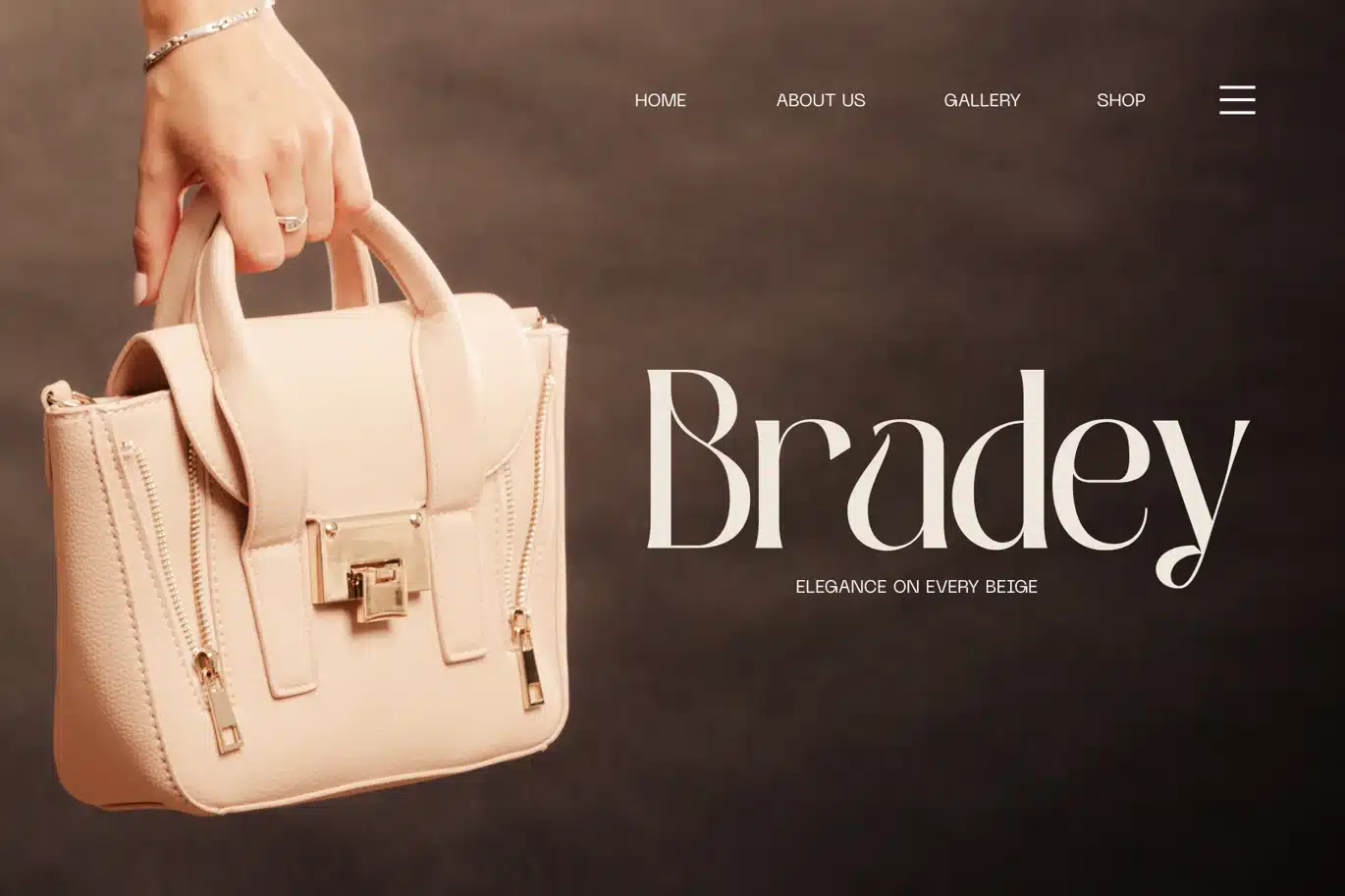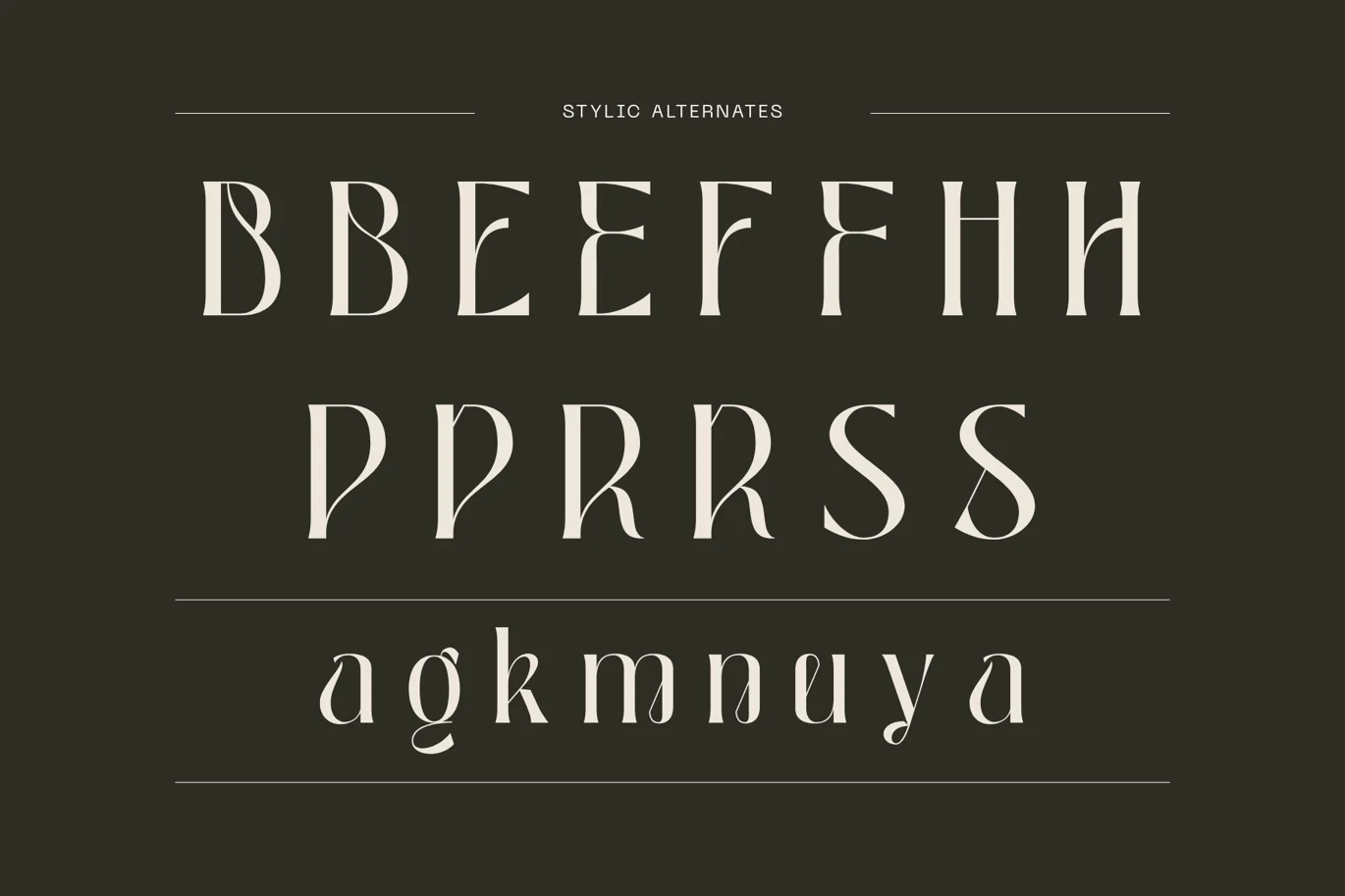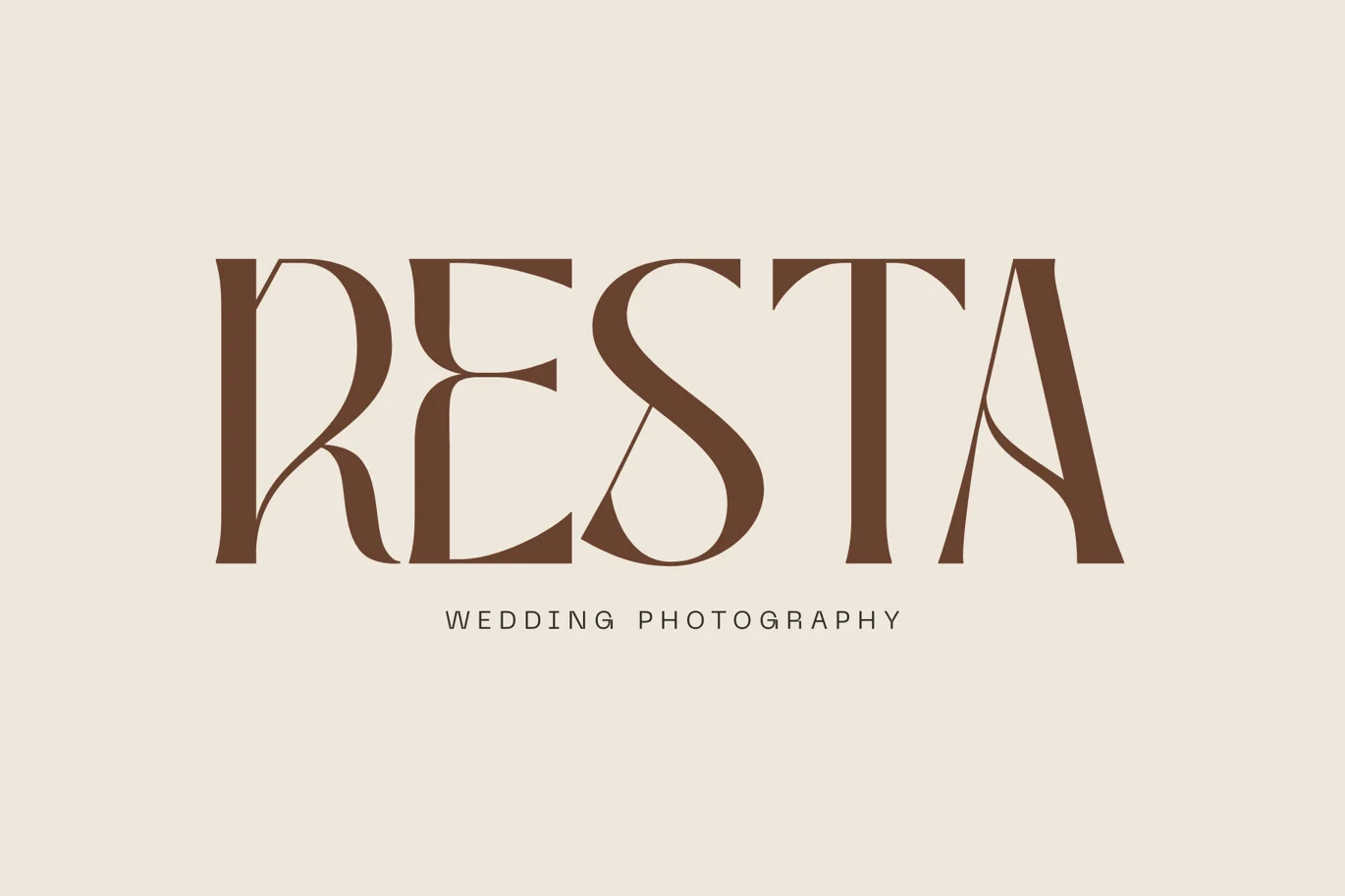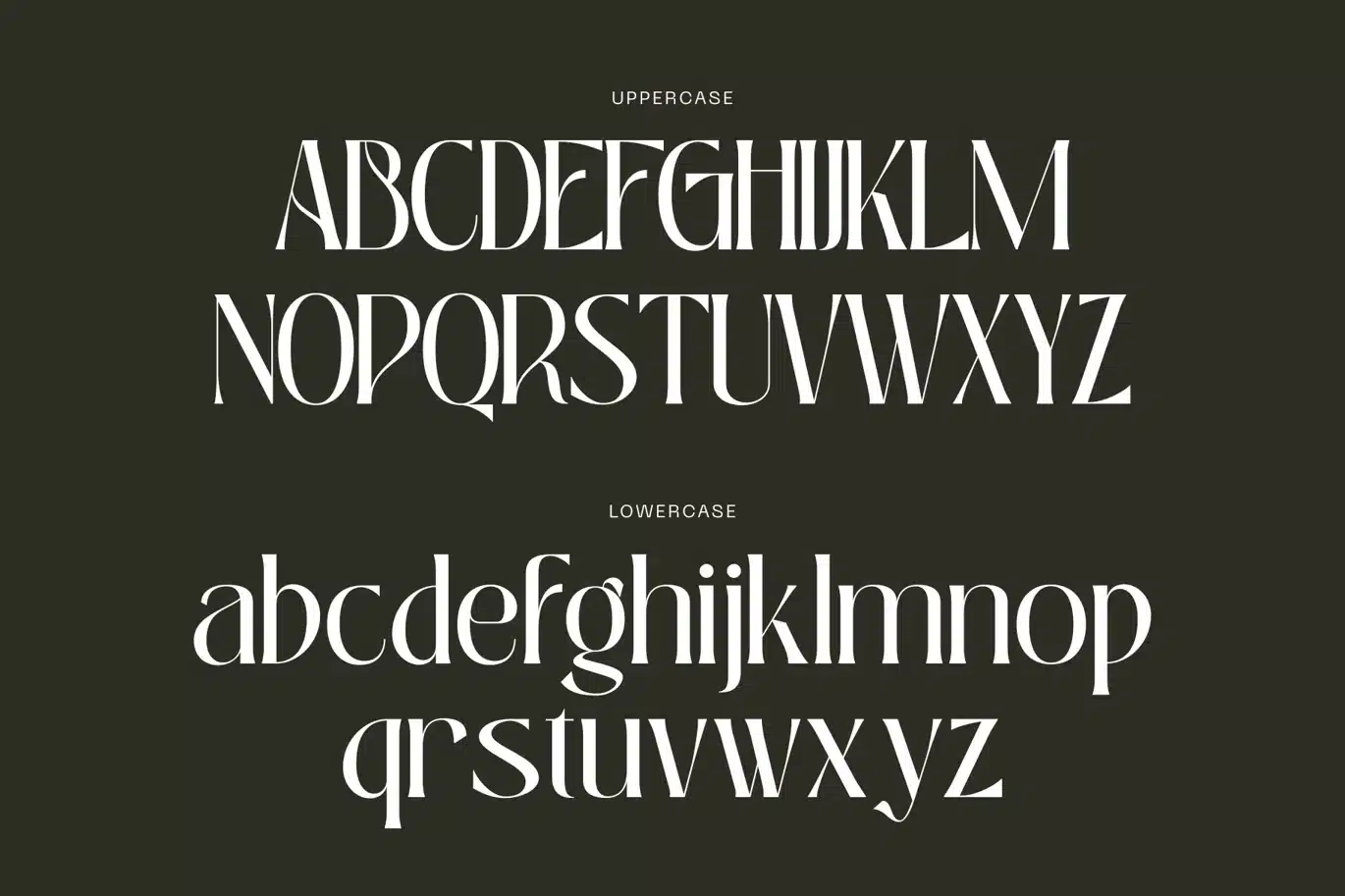
Luxury Elegant Logo Font – Bageki
Bageki Luxury - Branding Logo Font
Bageki Luxury offers beautiful typographic harmony for a diversity of design projects, including logos & branding, social media posts, advertisements & product designs.